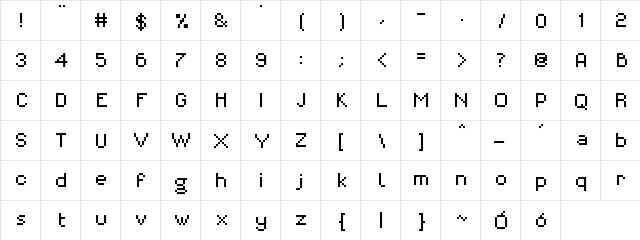
MiniForma Regular
Design Context for MiniForma Typeface
MiniForma offers clean, dependable letterforms without strong stylistic allegiance, making it a practical choice for designers who need flexibility.